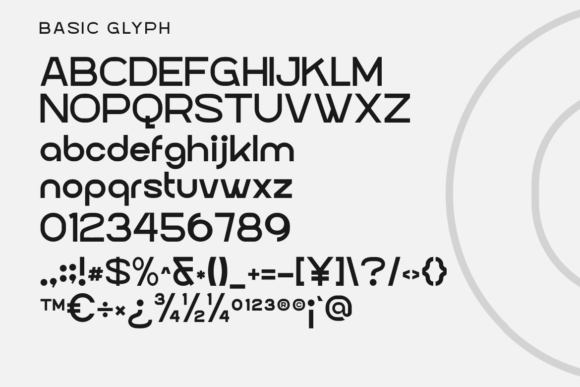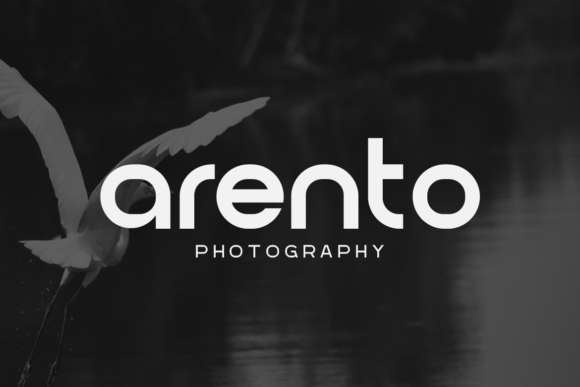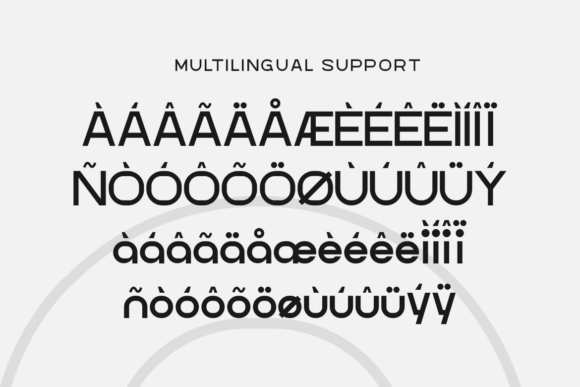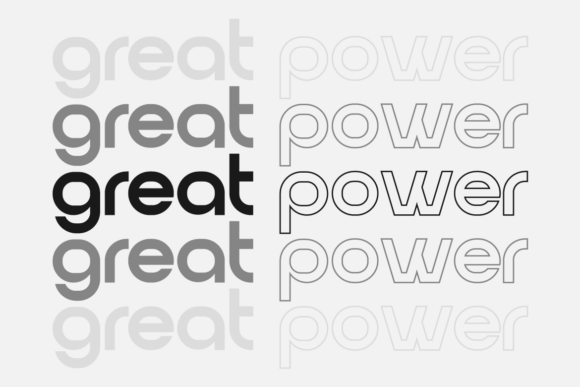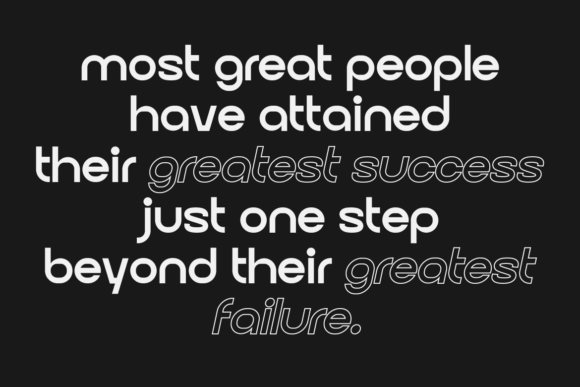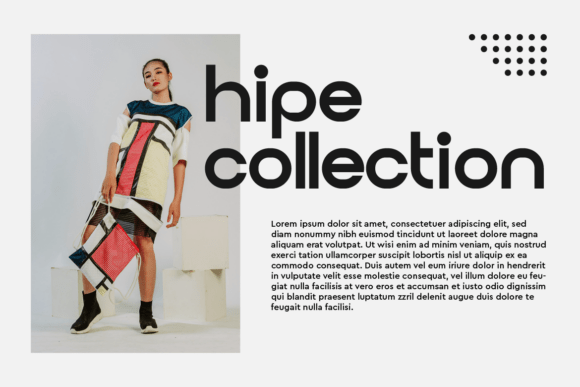
The Birth of a Bold Branding Tool
Do you remember the moment when a simple font choice transformed your logo and gave your brand a whole new identity? For designers, that ‘aha’ moment is priceless. It’s the culmination of creativity, experimentation, and a dash of intuition. And that’s exactly what the Bricle Font delivers – a powerful tool to help brands stand out in a crowded market.
Designed specifically for logos, branding, and bold visual statements, Bricle Font boasts sharp edges, clean lines, and modern proportions that exude confidence and style. Its versatility makes it an invaluable asset for designers looking to create a lasting impression. With Bricle Font, the possibilities are endless – from sleek business cards to eye-catching billboards, this font is sure to elevate your brand’s visual language.
Bricle Font Key Features
- Font Family: Bricle is a sans-serif font family designed for modern and minimalist designs. It comes in multiple weights, from Light to Bold.
- Unique Characteristics: Bricle Font features a clean and geometric design, with a focus on legibility and readability. Its unique characteristics include a high x-height, open apertures, and a subtle rounded edge.
- Font Pairing: Bricle Font is designed to be paired with other sans-serif fonts, making it an excellent choice for modern and minimalist designs.
Bricle Font Review
Overall, I found Bricle to be a decent font, but it didn’t blow me away. ✨ One of the things I appreciated was its modern, sleek aesthetic, which makes it suitable for a wide range of design projects. The font is particularly well-suited for digital applications, where its clean lines and minimal ornamentation will help your content stand out.
Another strength of Bricle is its excellent legibility, even at smaller font sizes. This makes it a great choice for body text, where clarity is key. The font also comes in a variety of weights, from light to bold, which gives you a lot of flexibility in terms of design.
- ⚠️ Limited expressiveness: While Bricle is a great all-around font, it doesn’t have a lot of personality or flair. It’s a safe choice, but it may not be the best option if you’re looking for a font that makes a bold statement.
- ⚠️ Limited character set: I noticed that Bricle doesn’t have a full set of glyphs, which may be a problem if you need to use special characters or languages that require a lot of diacritics.
Overall, I would say that Bricle is a solid choice for designers who need a clean, modern font for their projects. While it may not be the most exciting or expressive font out there, it gets the job done and looks great in a variety of contexts.
Bricle Font is ideal for use in modern branding, logos, and typography-based designs. It’s also great for use in presentations, documents, and social media graphics.